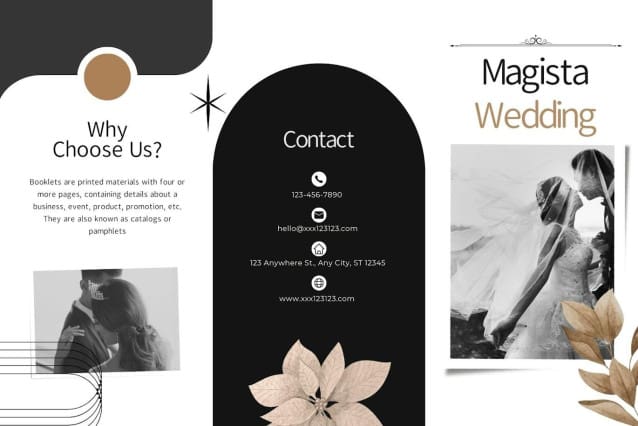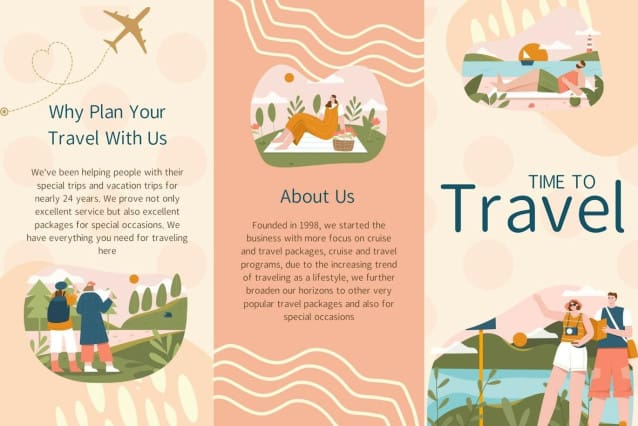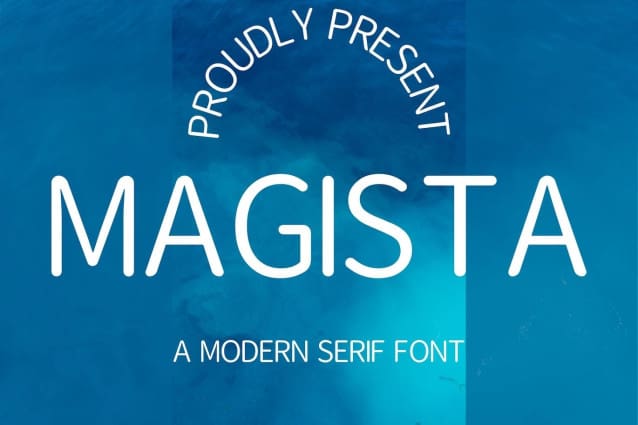
Magista Font
Magista Font, this font embodies a symmetrical and balanced rhythm through a unique blend of different sources of inspiration. Proportions are precisely adjusted with subtle contours and subtle contrasts. These shapes give the font an attractive look without compromising elegance and minimalism, ensuring that any glyph is suitable for all graphic design purposes such as brochures, videos, advertising branding, logos, magazines , layouts, posters, post templates, games and more